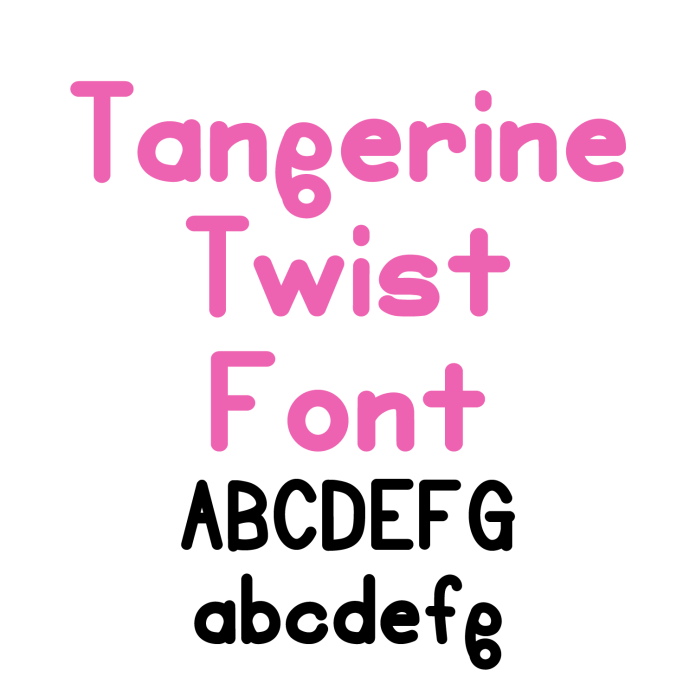
Introducing Tangerine Twist Font—a fresh and zesty handwritten sans serif font that adds a burst of personality to your crafting projects! With its casual strokes and hand-drawn charm, this playful font is perfect for stickers, labels, greeting cards, quotes, party decor, and custom gifts. Tangerine Twist is designed to work seamlessly with your cutting machine, offering smooth cuts for vinyl, printables, and DIY projects. Whether you're creating cheerful designs for kids, fun home décor, or eye-catching event signage, this quirky and versatile sans serif typeface is a must-have. Download Tangerine Twist Font today and get crafting!